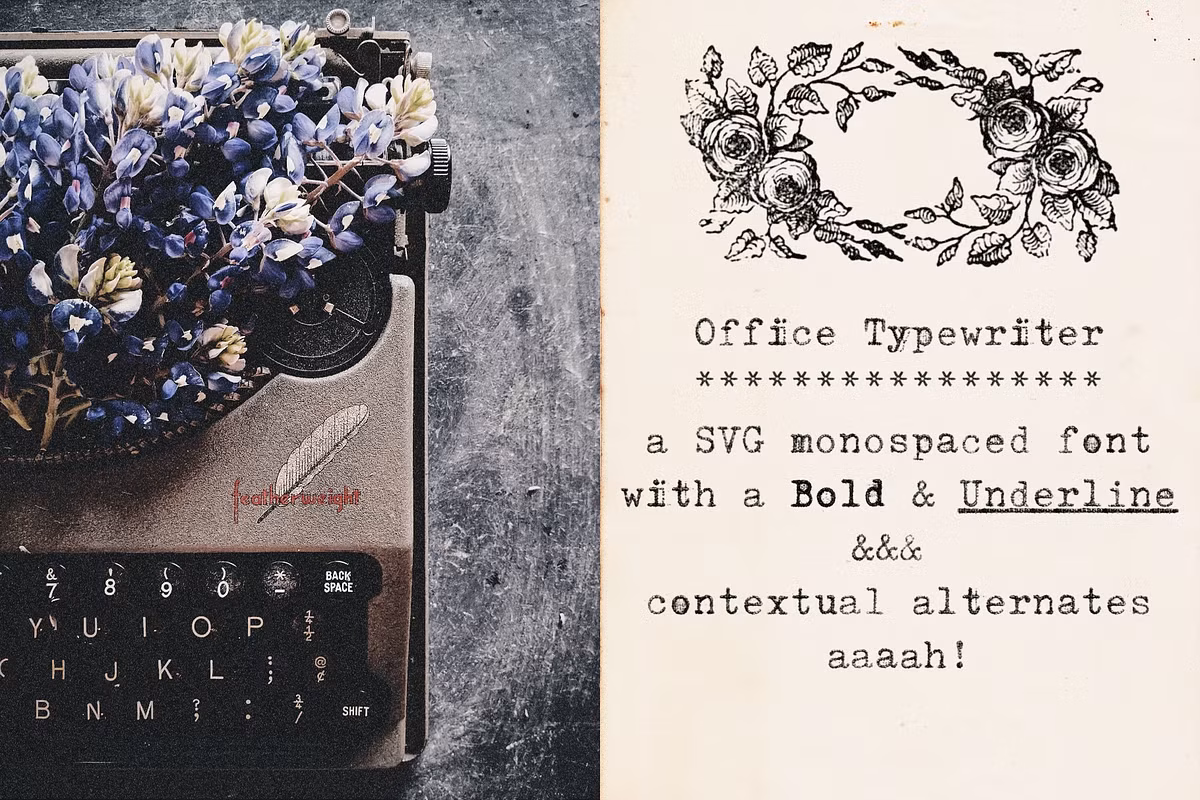
Office Typewriter SVG Font Free Download is a nostalgic, vintage-inspired typeface that brings the classic charm of typewriter lettering to your designs. Featuring detailed textures and unique letterforms, this font is perfect for creating retro logos, posters, branding materials, invitations, and social media content. The SVG technology adds depth and dimension to each character, enhancing the authentic feel of the font. Whether you’re working on a vintage project, a creative campaign, or a nostalgic brand, Office Typewriter SVG Font Free Download allows you to experiment with its distinctive design in personal projects before purchasing a commercial license. Add a timeless, authentic touch to your designs with this beautifully crafted typewriter font.